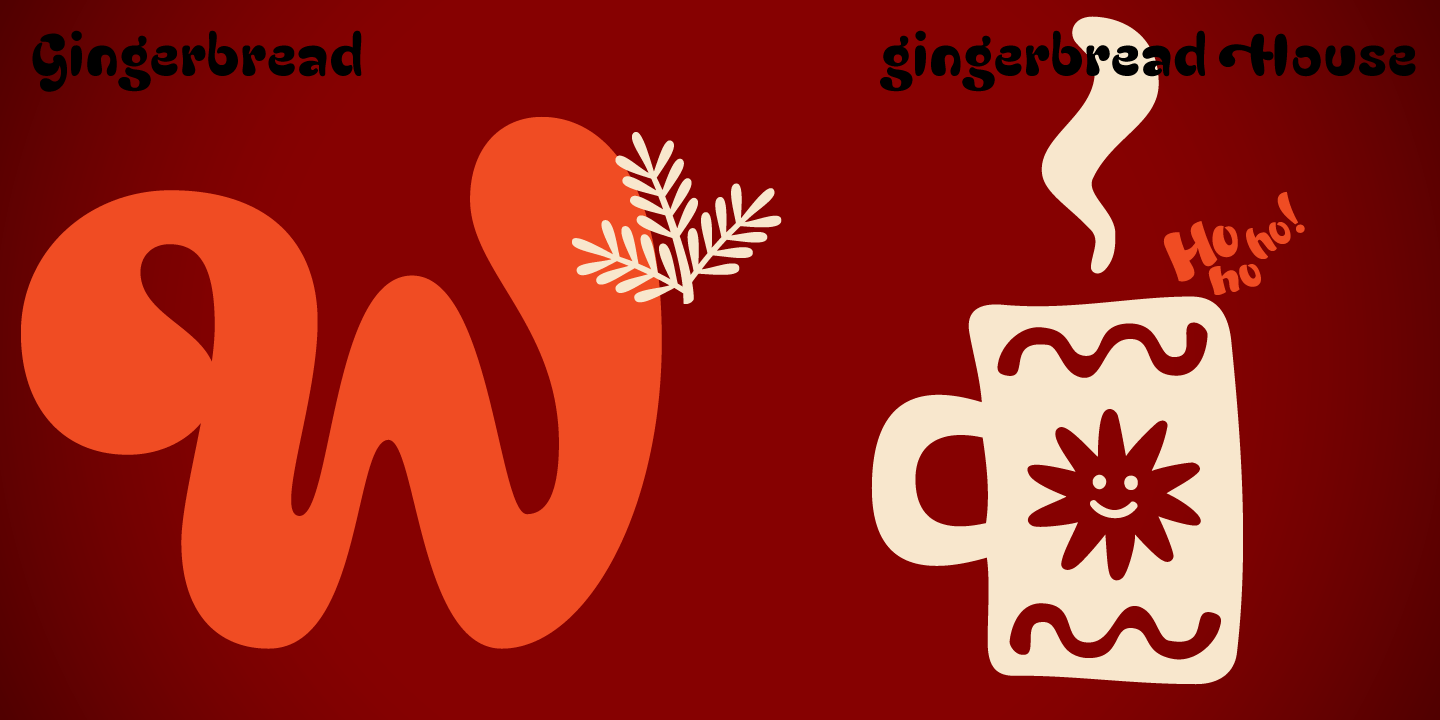
Gingerbread Font is perfect for a wide range of design applications including holiday greeting cards, Christmas bakery branding, festive packaging designs, winter celebration invitations, seasonal restaurant menus, cozy cafe signage, holiday craft projects, children's storybook layouts, warm family event materials, and cheerful seasonal editorial designs.
What makes Gingerbread Font exciting is its delightful warmth and festive charm that perfectly captures the cozy comfort and sweet nostalgia of holiday traditions and homemade baking. This enchanting typeface brings a sense of seasonal joy and heartwarming celebration to any project with its carefully crafted letterforms that evoke the sweet textures and decorative icing details of freshly baked gingerbread cookies. The font's playful character shapes and inviting proportions create an atmosphere of family togetherness and holiday magic that resonates with audiences seeking comfort, tradition, and seasonal celebration, making it an ideal choice for brands emphasizing warmth, family values, and festive hospitality.
The Gingerbread Font family includes multiple weights and styles designed to accommodate various seasonal and festive design requirements. The collection typically features regular, bold, decorated, and ornamental variations, each maintaining the font's signature holiday aesthetic while providing comprehensive design flexibility. Additional seasonal ornaments and festive flourishes enhance the family's creative potential for celebration-focused design projects.
Professional designers appreciate Gingerbread Font's exceptional charm and comprehensive character support. The font includes extensive punctuation marks, numerical figures, seasonal symbols, and international language capabilities, making it perfect for global holiday brands and international celebration projects. Its warmly optimized spacing and kerning ensure professional results in packaging, invitations, and seasonal branding applications.
The growing popularity of Gingerbread Font in the design community reflects its ability to enhance seasonal branding and create memorable visual experiences that celebrate the joy of holiday traditions and family celebrations. Whether used for bakery branding, holiday product packaging, or festive creative projects, this font delivers exceptional results that honor the sweet tradition of holiday baking and seasonal hospitality.